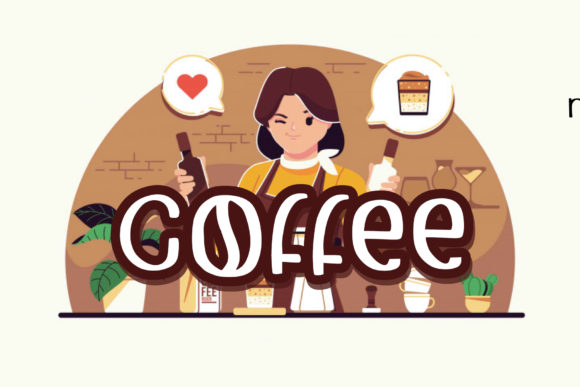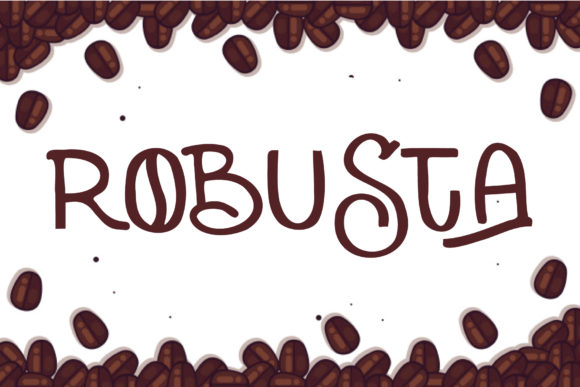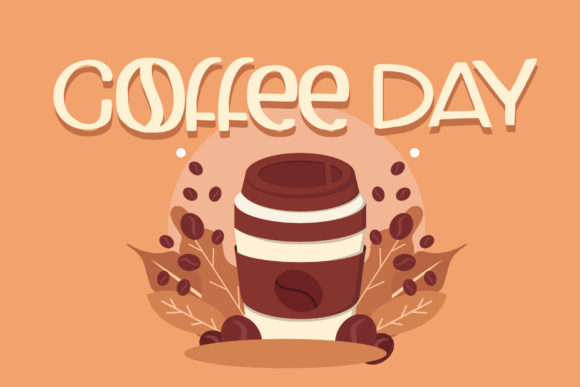
Coffee Font: The Perfect Addition to Your Design Collection
Are you tired of using the same old fonts in your designs? Look no further than the Coffee Font, a cute and friendly display font that’s sure to bring a youthful feel to your creations. With its chunky lettered style, this font is perfect for designers and crafters looking to add a touch of personality to their work.
The Inspiration Behind Coffee Font
Coffee Font is a display font that’s inspired by the warmth and comfort of a cup of coffee on a chilly morning. Its creators aimed to capture the feeling of a relaxed, casual atmosphere, where creativity and conversation flow freely. The result is a font that’s incredibly youthful, yet still approachable and easy to read.
Key Features of Coffee Font
• Chunky Lettering: Coffee Font features thick, chunky letters that are perfect for headlines, titles, and other design elements where you want to make a statement.
• Youthful Feel: The font’s playful, energetic vibe is sure to appeal to designers and crafters looking to create designs that are fun, modern, and engaging.
• Cute and Friendly: Coffee Font has a warm, approachable feel that’s perfect for designs where you want to convey a sense of friendliness and approachability.
• Highly Versatile: Whether you’re designing a logo, brochure, or social media graphic, Coffee Font is a versatile choice that can be used in a wide range of design applications.
How to Use Coffee Font in Your Designs
Coffee Font is easy to use and can be incorporated into your designs in a variety of ways. Here are a few ideas to get you started:
• Headlines and Titles: Use Coffee Font to create eye-catching headlines and titles that grab attention and draw the reader in.
• Logos and Branding: Coffee Font is a great choice for logos and branding elements, where you want to create a memorable and distinctive identity for your business or organization.
• Social Media Graphics: Add a playful touch to your social media graphics with Coffee Font, which is perfect for creating engaging and shareable content.
• Invitations and Announcements: Use Coffee Font to create fun and festive invitations and announcements that set the tone for a special event or celebration.
Tips for Pairing Coffee Font with Other Fonts
While Coffee Font is a great choice on its own, it can also be paired with other fonts to create a unique and interesting design. Here are a few tips for pairing Coffee Font with other fonts:
• Contrast with a Serif Font: Pair Coffee Font with a serif font, such as Arial or Times New Roman, to create a interesting contrast between the chunky, playful letters and the more traditional serif font.
• Match with a Script Font: Coffee Font also pairs well with script fonts, such as Pacifico or Great Vibes, which can add a touch of elegance and sophistication to your design.
• Use with a Bold Font: If you want to create a bold and eye-catching design, try pairing Coffee Font with another bold font, such as Impact or Museo.
Font Name Coffee Font
Author goodigital
Coffee Font is a unique and versatile display font that’s perfect for designers and crafters looking to add a touch of personality to their work. With its chunky lettered style and youthful feel, this font is sure to bring a smile to your face and inspire your creativity. So why not give Coffee Font a try and see how it can bring your designs to life?